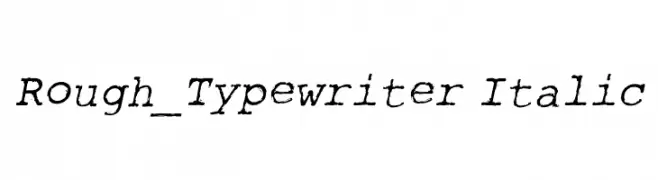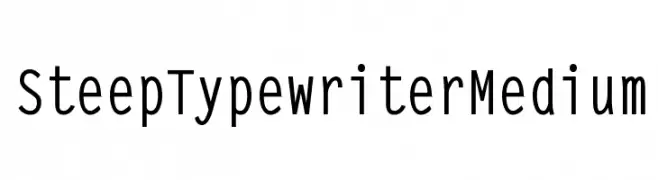
A vintage typewriter-style font with monospaced characters and a classic, mechanical look.
A bold, vintage typewriter-style font with a mechanical and nostalgic feel.
A vintage, monospaced typewriter-style font with a rough, mechanical feel.
A vintage typewriter-inspired font with monospaced, slightly irregular characters.
A bold, vintage typewriter-style font with a textured, mechanical feel.
A vintage typewriter-inspired font with a monospaced, mechanical look.
A vintage, monospaced italic font with a classic typewriter feel.
A bold, monospaced typewriter-style font with a vintage feel.
A vintage typewriter-style font with a textured, distressed appearance.
A vintage typewriter-style font with irregular, bold characters.
A distressed, vintage typewriter-style font with a monospaced, textured appearance.
A vintage, textured typewriter-style font with a distressed, handcrafted appearance.
A vintage typewriter-style font with a bold, textured appearance.
A vintage typewriter font with a bold, monospaced design and textured appearance.
A vintage, distressed typewriter-style font with a rugged, monospaced design.
A vintage typewriter-style font with monospaced characters and a nostalgic feel.
A vintage typewriter-style font with textured, uneven characters.
A vintage typewriter-style font with a doubled, distressed look.
A vintage typewriter-style font with a rough, textured appearance.
A vintage typewriter-style font with a distressed, authentic look.
( Fonts by Galdino Otten Fonts - www.galdinootten.com - Personal-use only. For commercial use please contact owner. )
A vintage, monospaced slab serif font with a typewriter style and distressed texture.
( Fonts by Mr Fisk - Mike Larsson - fontorama.net )
A vintage typewriter-style font with a distressed, hand-crafted appearance.
( Fonts by Mr Fisk - Mike Larsson - fontorama.net )
A vintage, typewriter-style font with a distressed, rugged texture.
( Fonts by http://perso.calixo.net/~uzim/ )
A rugged, distressed typewriter-style font with a vintage, grunge aesthetic.
( Fonts by Mr Fisk - Mike Larsson - fontorama.net )
A distressed, vintage typewriter-style font with a bold, grunge aesthetic.
A vintage, typewriter-inspired font with a bold, distressed look.
A bold, serif font styled like vintage typewriter keys with circular outlines.
A bold, engraved Punjabi script with a typewriter aesthetic.